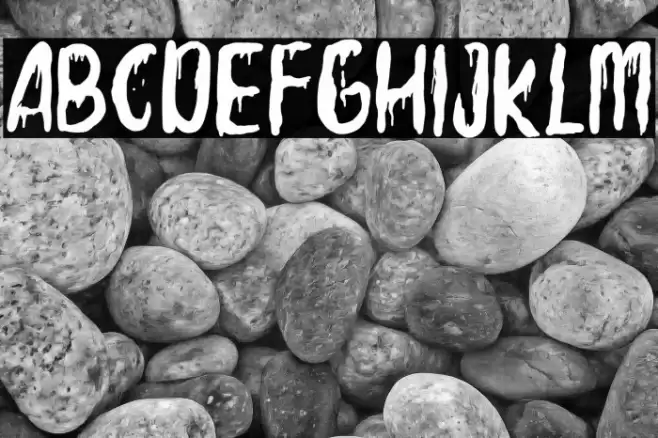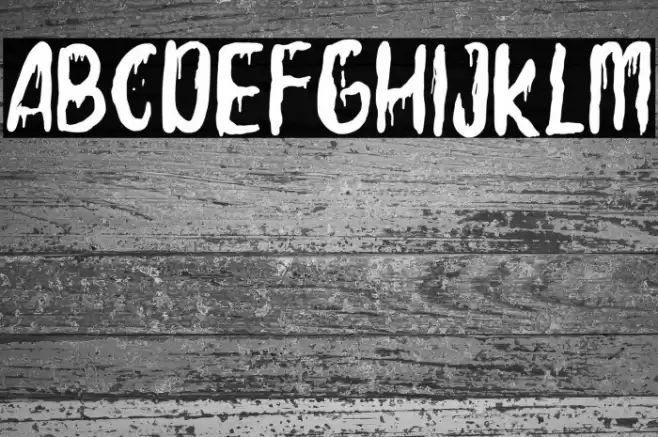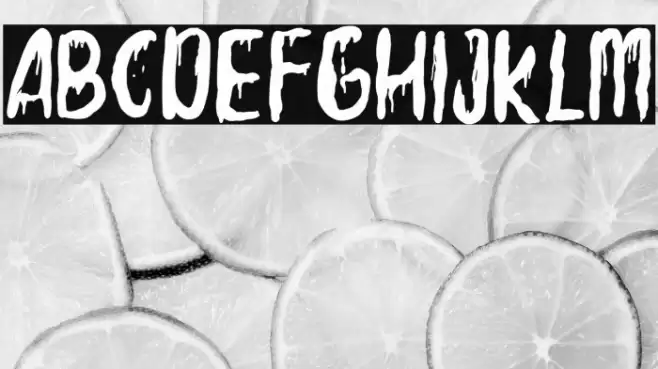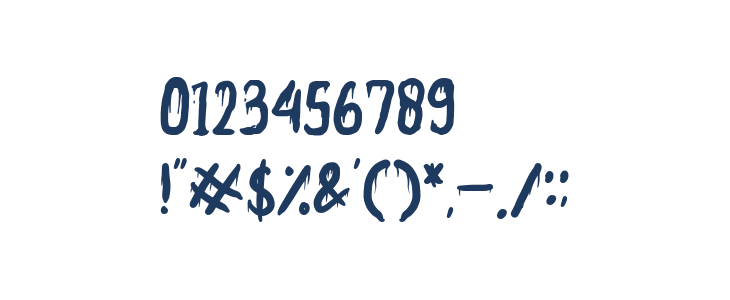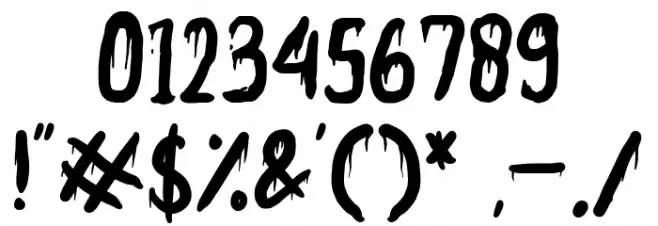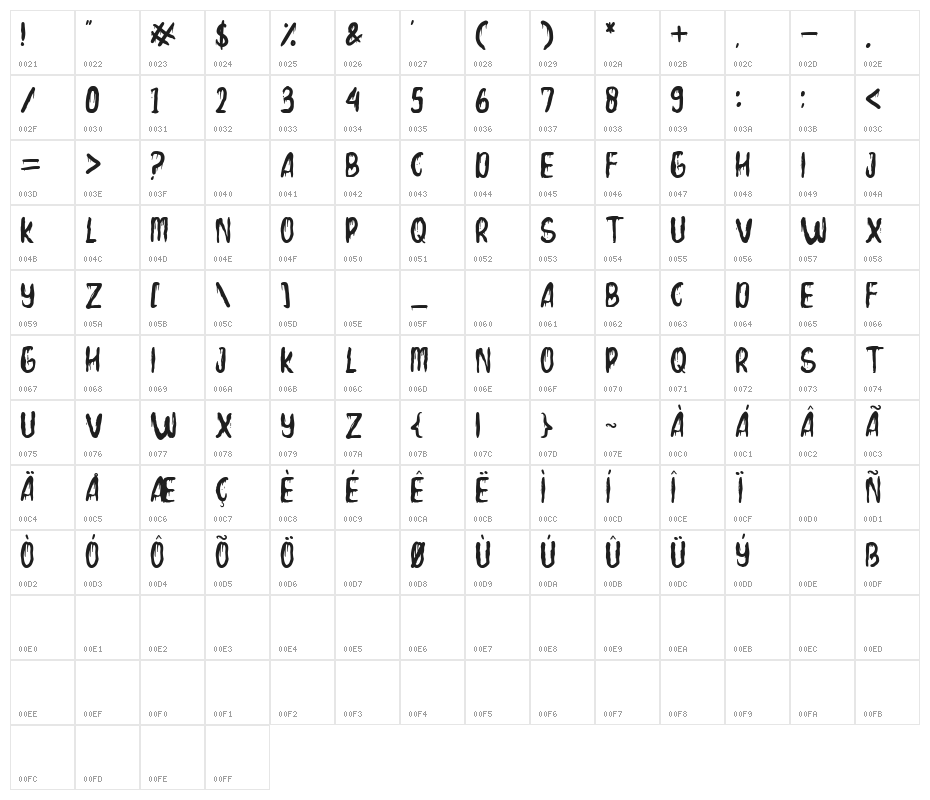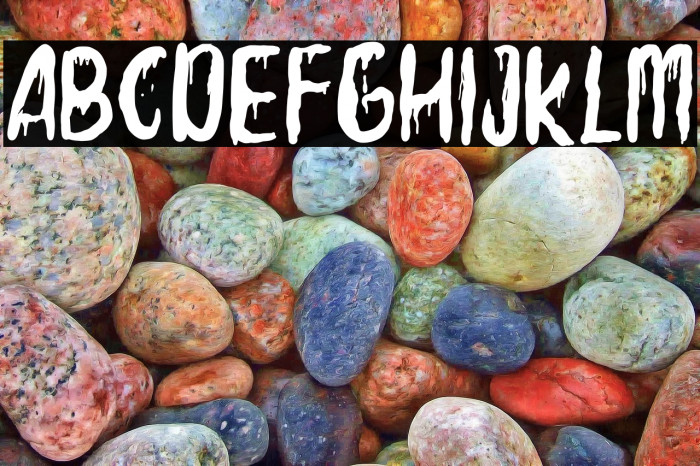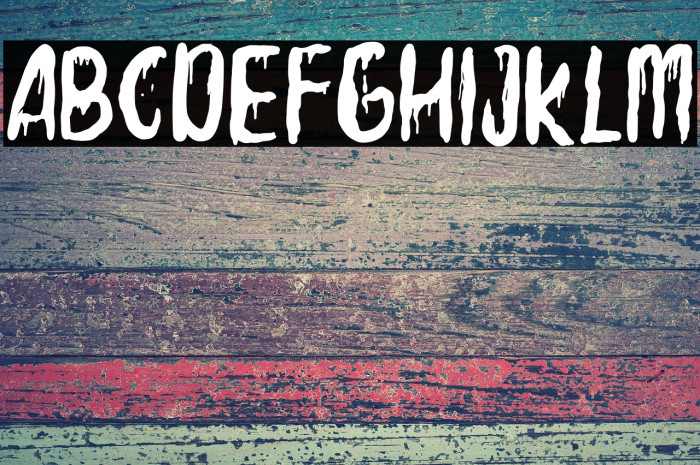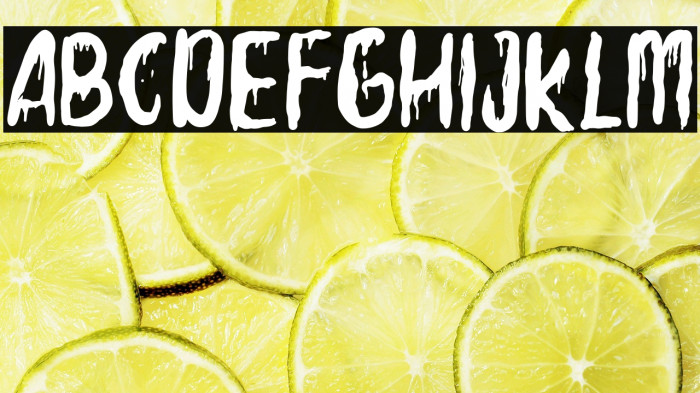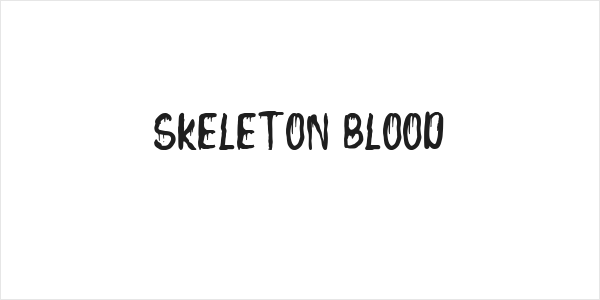
Skeleton Blood Font
Skeleton Blood Description
This font features a dramatic and eerie design, with letters that appear to be dripping or melting, reminiscent of horror or Halloween themes. The uppercase and lowercase letters maintain a consistent style, with uneven edges and a bold presence. Numbers and special characters follow the same aesthetic, enhancing the overall spooky and unsettling vibe. The font's unique appearance makes it ideal for themed projects that require a touch of the macabre or supernatural.
A bold, dripping font perfect for horror or Halloween themes from Uncategorized fonts.
- Proposed Projects: Ideal for Halloween invitations, horror movie posters, themed event flyers, and spooky merchandise designs.